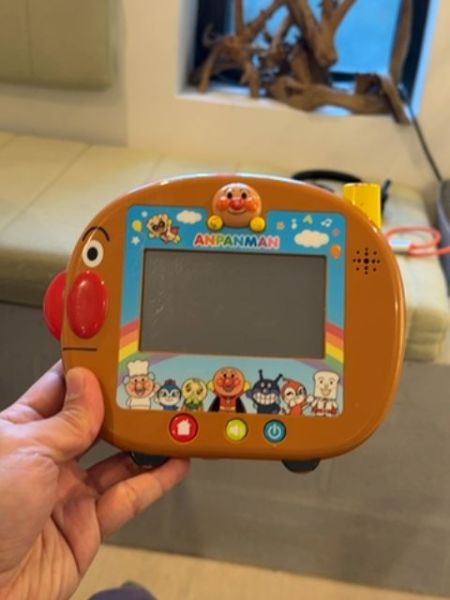
Anpanman Tablet
Anpanman Tablet is an educational toy designed for young children to engage in learning activities through interactive play.
The typography on the product prominently features the Anpanman logo in a bold, playful font that captures the fun and energetic essence of the brand. The use of bright colors in the text aligns with the cheerful nature of the overall design. The child-friendly, rounded typeface enhances readability for young users.
The packaging is vibrant and colorful, featuring various characters from the Anpanman series, which adds an element of playfulness. The brown frame housing the educational screen is ergonomically designed for easy handling by small children.
- Anpanman is a popular Japanese children's character.
- The tablet includes educational games and songs.
- It is designed to help children with early learning skills.